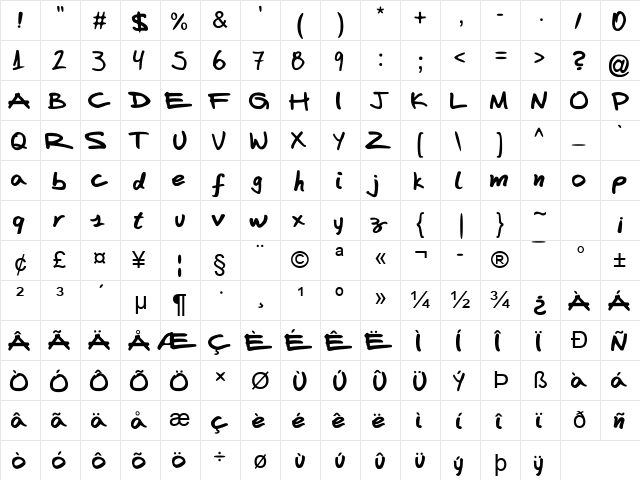
FAFERS Handwriting Font Regular
| Foundry | FAFERS |
| Designer | Fᢩo FAFERS " 2002 |
Design Context for FAFERS Handwriting Font Typeface
FAFERS Handwriting Font flows with the natural rhythm of handwritten lettering, making it ideal for designs that call for warmth and personal expression.
Font Pairing: Combine FAFERS Handwriting Font with a simple geometric sans for maximum contrast — the tension between flowing curves and clean structure is a classic typographic pairing.
Pro Tip: Use FAFERS Handwriting Font for short runs of text — names, titles, or taglines. Extended body copy in script faces tires the eye quickly.